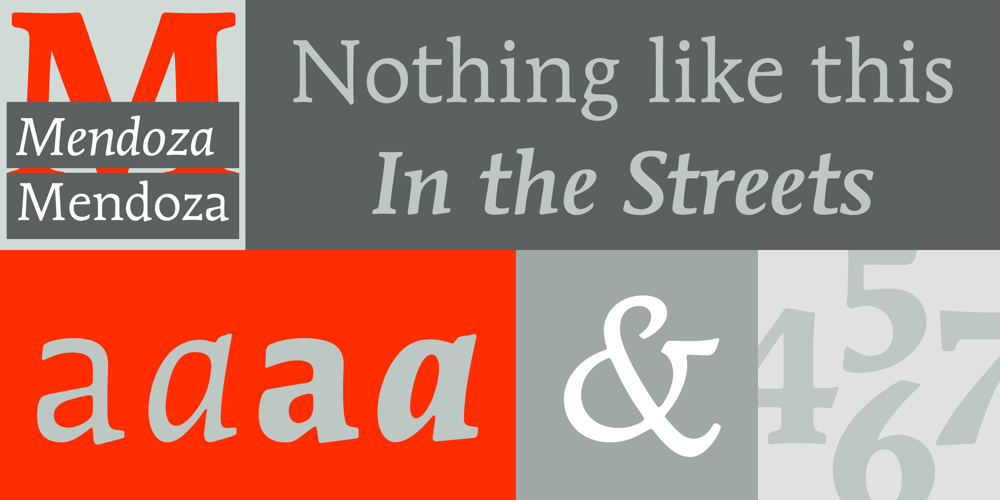
ITC Mendoza Roman Font Family was designed by José Mendoza y Almeida and published by ITC. ITC Mendoza Roman contains 6 styles and family package options. ITC Mendoza is a serif typeface with old style characteristics. A generous x-height and a lack of contrast between thick and thin strokes, gives the ITC Mendoza Roman font family good legibility and provides a sturdiness which enables the face to withstand low resolution output and less than ideal printing conditions. It is ideal for continuous text use, particularly in small point sizes.